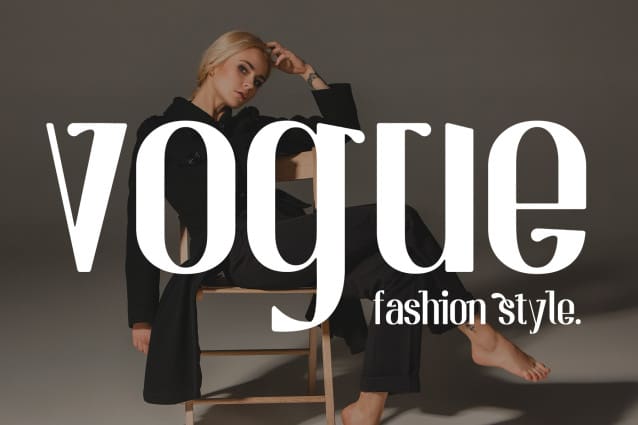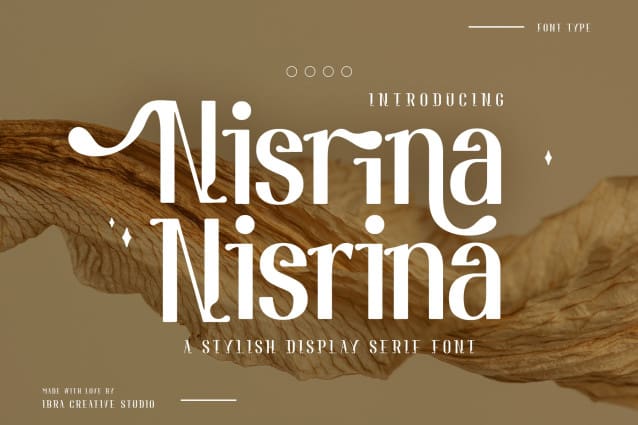
Nisrina Font
Nisrina Font, a stylish display serif font, embodies a perfect blend of timeless sophistication and modern allure. With its well-defined serifs and sleek lines, Nisrina Font exudes an air of elegance and refinement. The characters stand tall and proud, showcasing a unique sense of confidence and poise. The balance of intricacy and simplicity in the letterforms adds to its visual appeal, making it a versatile choice for luxury branding, editorial designs, and high-end product packaging. Nisrina effortlessly commands attention and elevates any project, marrying classic charm with contemporary chic, rendering it a font that truly stands out in the realm of sophisticated typography.